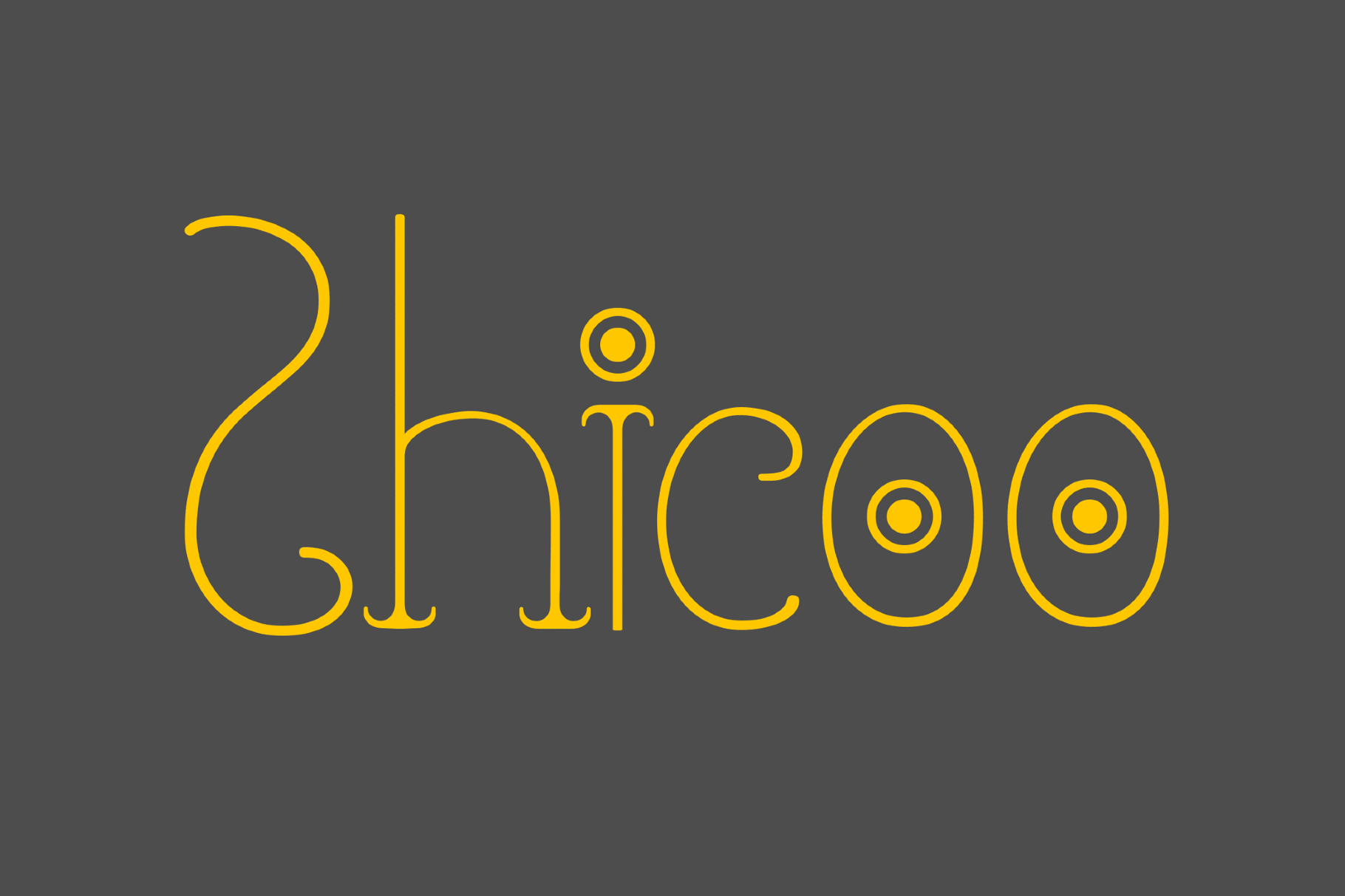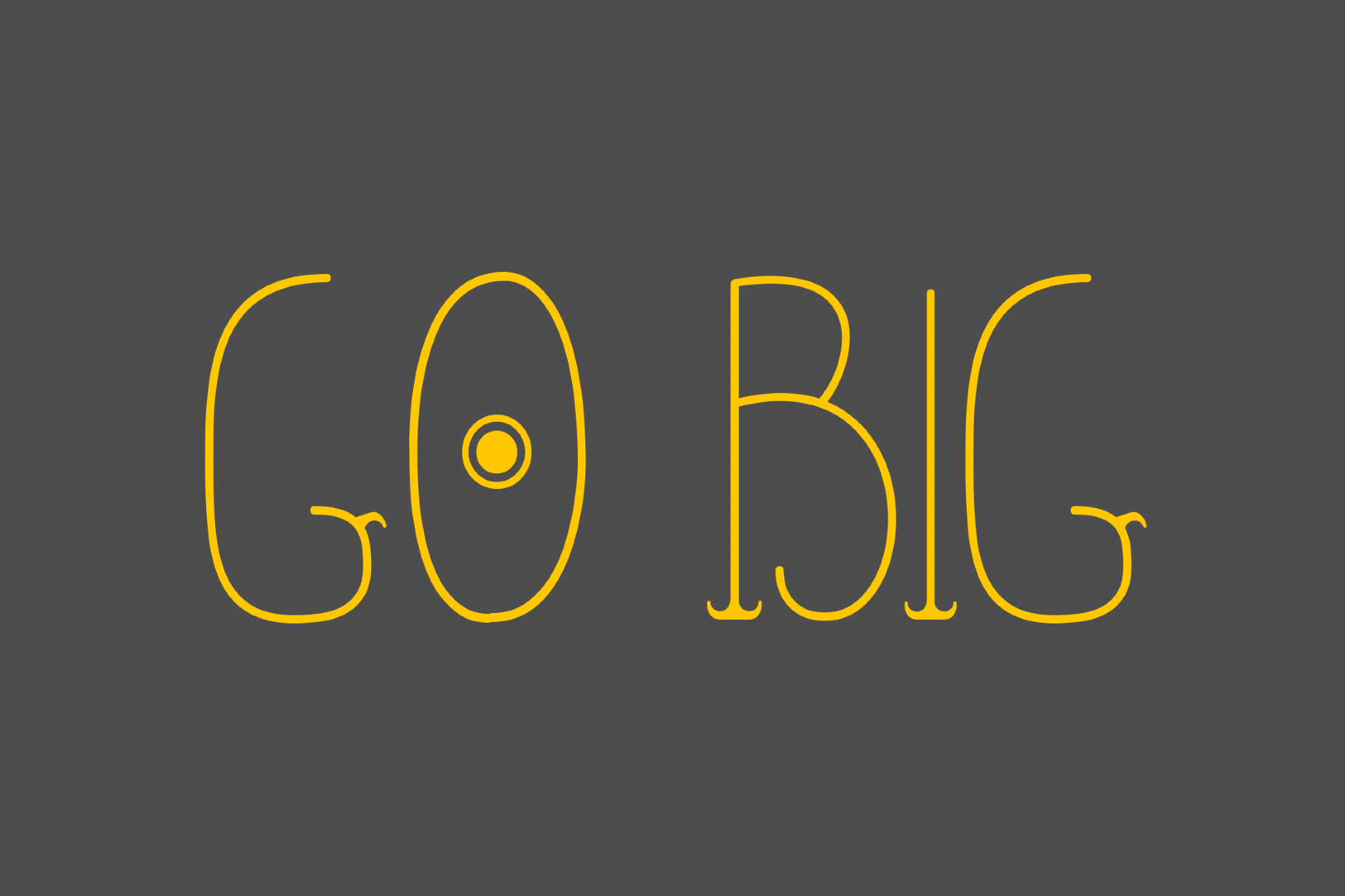
Shicoo - Free Funny Font
SHICOO
Chicoo is a slender decorative type with looping ascenders and eye-like counters that give it an animated expression. Its linework suggests storybook titling, novelty shop signs and whimsical lettering from mid-century children’s print. This funny font is well-suited to boutique logos, candy labels, poster captions, book covers, menu details, packaging fronts and playful identity work.